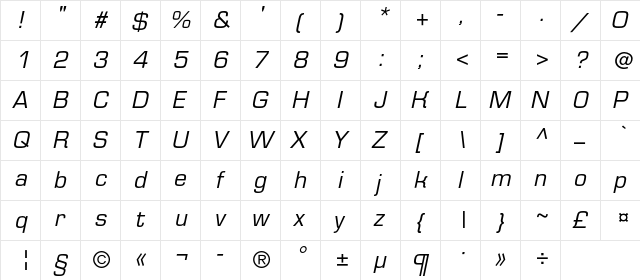
EurofontC Italic
Design Context for EurofontC Typeface
EurofontC takes a measured approach to typography — its balanced proportions and neutral character make it a reliable workhorse for both digital and print work. Its italic angle brings a sense of urgency and motion to the letterforms.
Pro Tip: Use EurofontC for emphasis, pull quotes, and subheadings where its slanted energy can add rhythm to the layout.